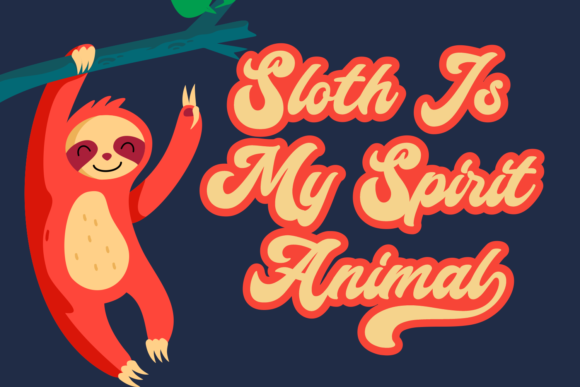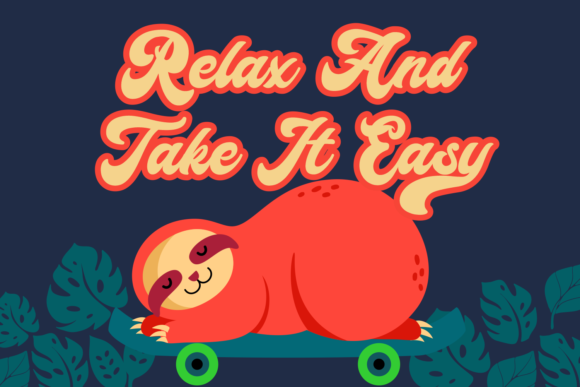
Slothdown Baby Font
db-ku.com - Script & Handwritten -- Take it easy! Inspired by sloths, Slothdown Baby is an adorable and friendly script for the ages.